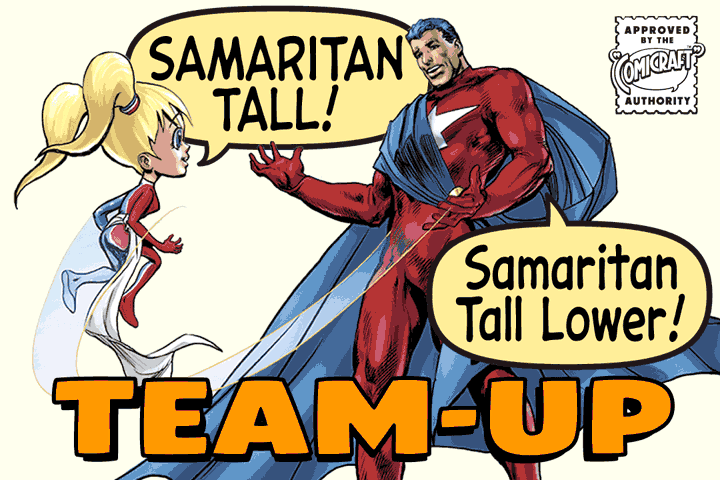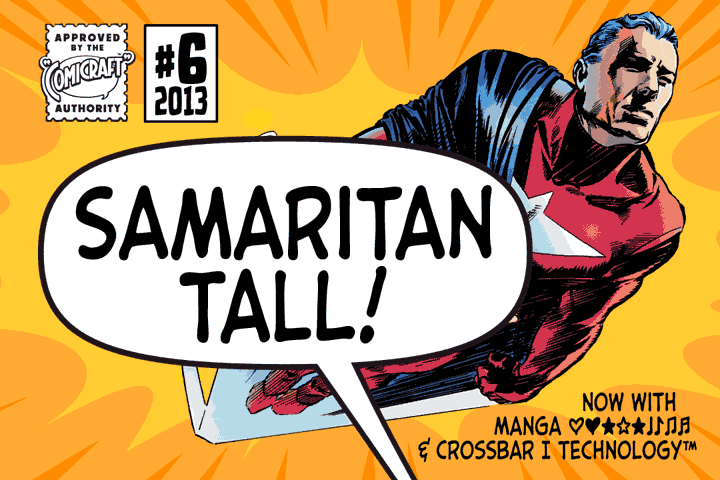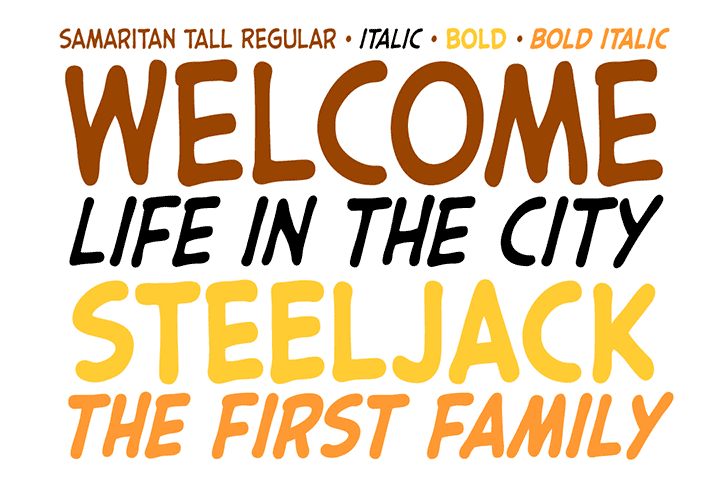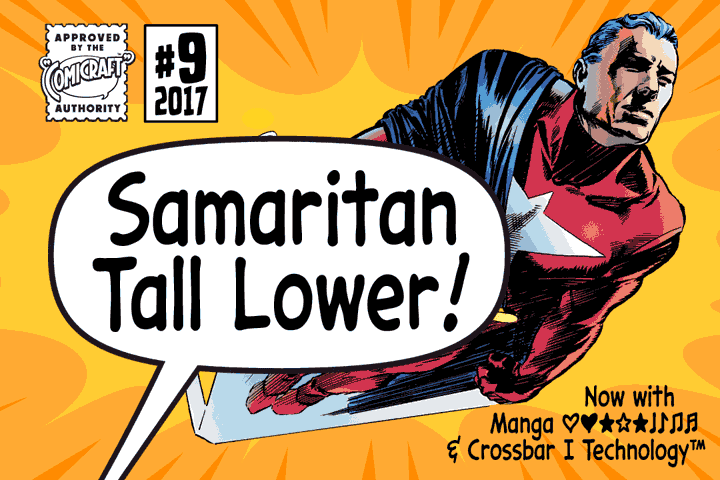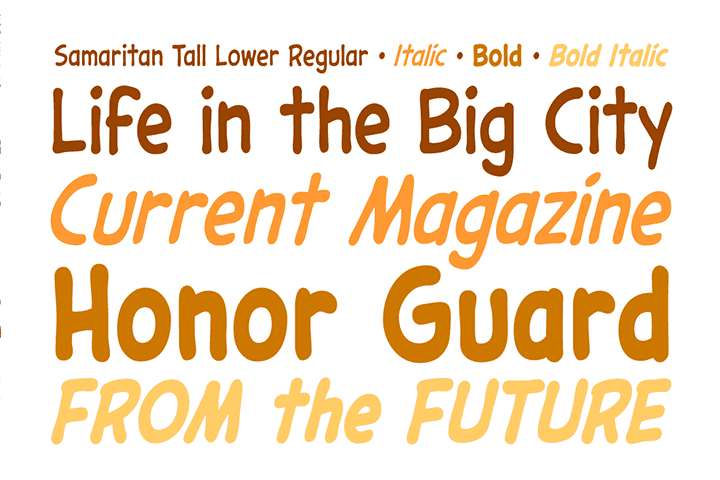
Samaritan Tall Team-up
First they fight, then they team up: Get both versions of SAMARITAN TALL – all-uppercase with automatic alternates, and upper & lowercase – for one low price!